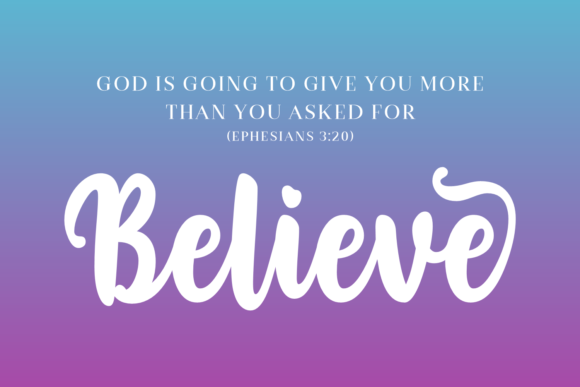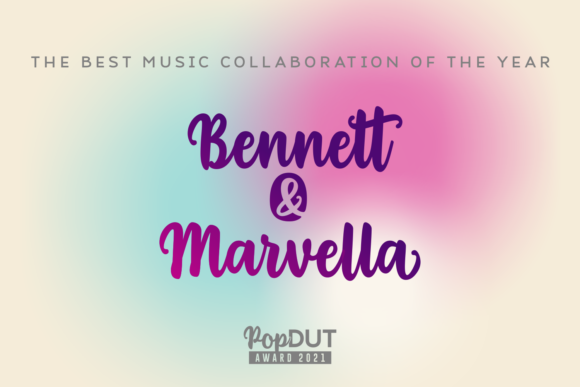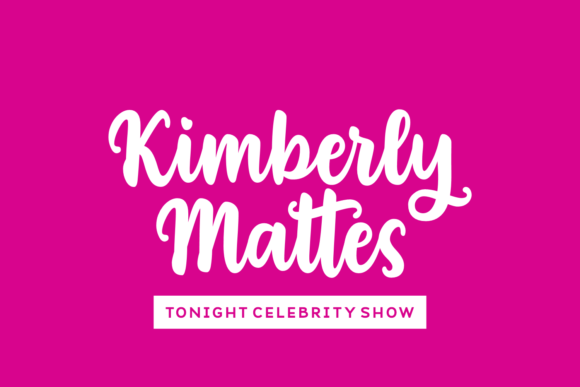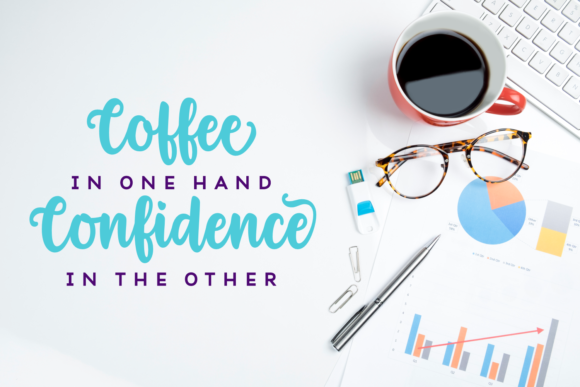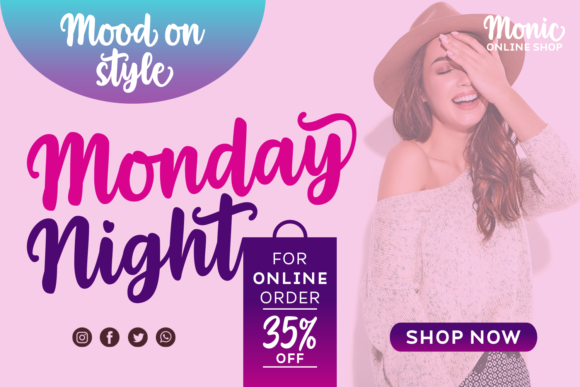
The Perfect Blend of Whimsy and Elegance: Blessing & Hope Font
There’s something special about stumbling upon a font that perfectly captures the essence of a design concept. For me, that moment came when I was working on a project that required a carefree and playful vibe. I was browsing through a collection of fonts, and then I saw it – Blessing & Hope Font, with its unique script and quirky edge.
| 👤 Author | Situjuh |
This charming font is more than just a pretty face; it’s a valuable tool for designers looking to add a personal touch to their work. With its large selection of natural-looking ligatures and PUA encoding, the Blessing & Hope Font makes it easy to access all the glyphs and swashes you need to create truly unique designs.
Blessing & Hope Font Key Features
- Font Family: Blessing & Hope
- Unique Characteristics: Hand-drawn, elegant script font with a modern and optimistic feel; perfect for creating a sense of warmth and positivity in designs
Blessing & Hope Font Review
Overall, I think Blessing & Hope Font is a beautiful, elegant script font that’s perfect for creating a sense of warmth and optimism. Here are some things that work well: ✨
- Calls attention: The unique, flowing design of this font is sure to catch the eye and draw attention to whatever text you’re using it for.
- Perfect for quotes: With its beautiful, flowing lines, this font is ideal for quotes, inspirational sayings, and other text that needs to convey a sense of hope and positivity.
- Works well in various sizes: Whether you’re using Blessing & Hope Font at a small size for a caption or a larger size for a title, it always looks great.
- Not ideal for body text: While Blessing & Hope Font is perfect for titles and captions, it may be difficult to read at a small size for extended periods of time, making it less suitable for body text.
- Limited character set: This font may not include all the characters you need, so be sure to check the character set before using it for any project.
Overall, I’m really impressed with Blessing & Hope Font and think it’s a great addition to any designer’s toolkit. It’s perfect for creating a sense of warmth and optimism, and it’s sure to add a touch of elegance to any project.
Tip: Use the Blessing & Hope font for titles, headings, and emphasis in your designs.
Tip: Use the Blessing & Hope font for custom illustrations, logos, and graphics.
Tip: Use the Blessing & Hope font for presentations, reports, and documents that require a touch of elegance.
The Blessing & Hope font is ideal for:
- Church programs and bulletins
- Personalized gifts and cards
Remember to use the font in a way that complements your design and message.
The Blessing & Hope Font is a beautiful, elegant script font that works well for various design projects. However, there are several alternatives that can offer similar or improved features. Here are a few options:
Great Vibes is a modern script font designed by Pablo Impallari and Rodrigo Fuenzalida. It’s perfect for projects that require a fun, energetic feel. Compared to Blessing & Hope Font, Great Vibes has a more playful and casual tone.
Q: What is the character set of the Blessing & Hope Font?
The Blessing & Hope Font supports a wide range of languages, including English, Spanish, French, German, Italian, Portuguese, Dutch, Swedish, Danish, Norwegian, and more. The font includes over 1000 glyphs, ensuring that you have access to the characters you need to create your designs.